My name is Bakker, thats dutch for Baker, as you have guessed already. So it's my honor to present the Bakker colorfont
Very nice font!
I know you've used Alphabix to make the font files, but which app have you used to design the glyphs?
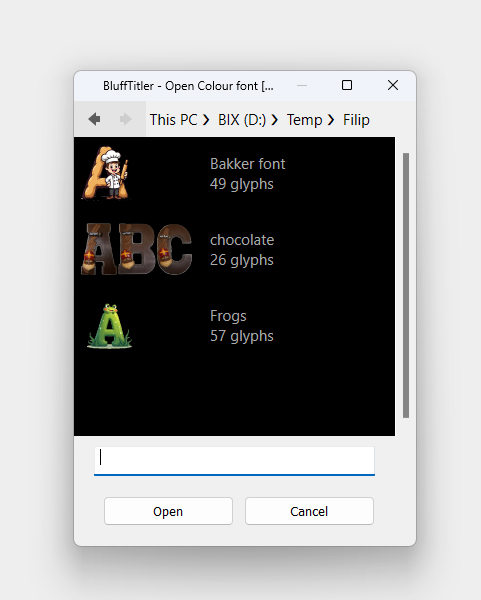
Michiel I used artistly.ai. This is a prompt:
A cartoon muscular male nurse with short Black hair and a moustache, wearing, blue scrubs, and white shoes, stands in front of a large pink letter 'Z' adorned with capsules The male nurse has a stethoscope around his neck. He tries to turn the letter 'Z' over with his both hands. A small red bottle laying left of the 'Z'. The bottle is fallen and the pils are one the ground. The background is transparent
I can get a transparent background
Michiel can we add a proprty to the ExtrudePicture.cfx.
I want to get rid of the edge being one color. Is it possible to add a kameleon feature, wheras the extruded part takes the nearby color?
Filip, by default it already works this way. Only when you set the FX USE FIXED SIDE COLOUR prop to 1, the side colour is one colour. Set this colour with the FX SIDE COLOUR prop.
Maybe your font uses a border colour.
The effect is Picture\ExtrudePicture. And the font is Playbox:
Filip, do you use a separate prompt for every glyph?
Or can Artistly generate the whole alphabet with a single prompt?
Each letter another Prompt. It is a lot of work. Thank you for your request (LOL)
As you see it does't work on the X.
It shines metalic and it looks like many layers
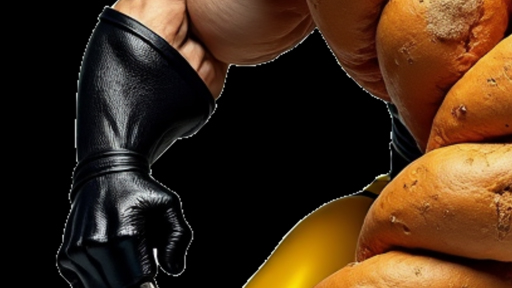
Filip, when you zoom in on the X you can see that it has a light grey border and low quality alpha channel antialiasing. Maybe you can fix the font texture in a paint app.
Realize that the ExtrudePicture works best for flat, 2D designs, like the Playbox font in my screenshot.